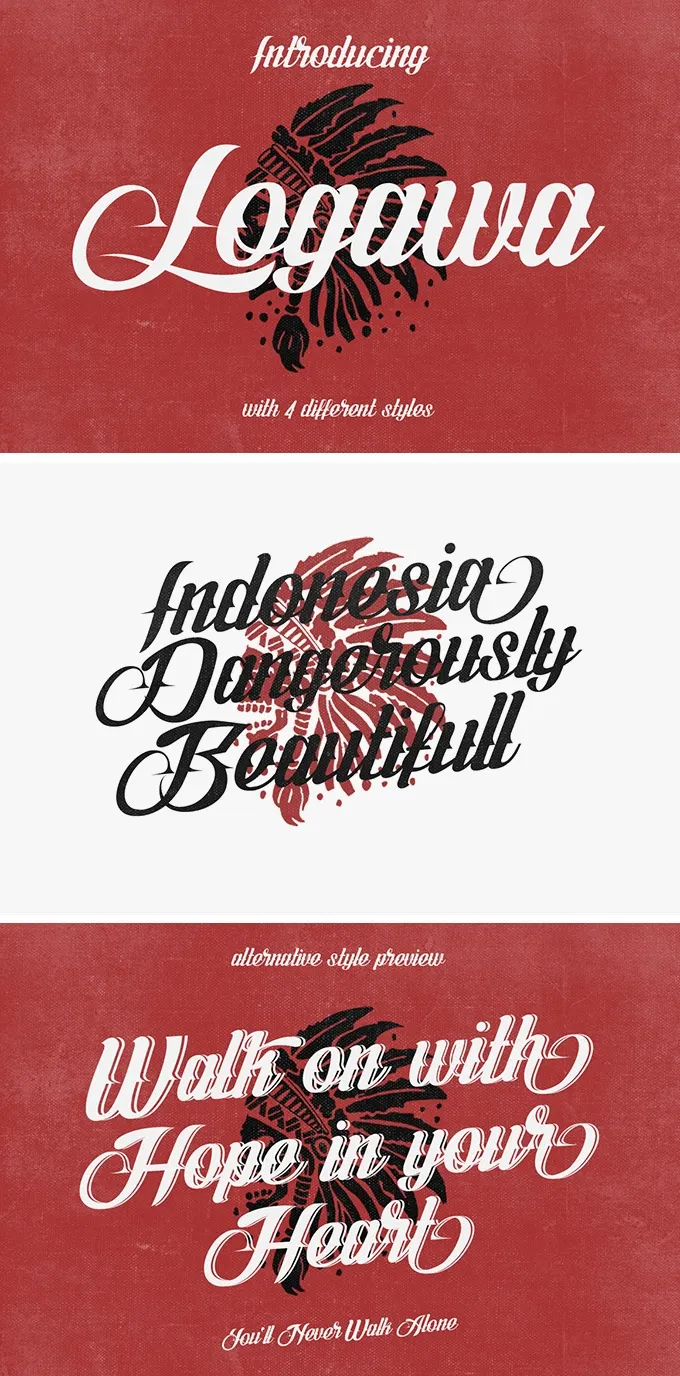
Logawa Script Font
Get yourself a handpainted typeface inspired by the tattoo artist lettering. Some ethnic motives are present as well, thanks to some vintage-looking characters of this adventurous script!
Our today's freebie comes in OTF and TTF formats with 4 different styles for your absolute convenience of self-expression. You have to choose the most suitable one, add some accents and you'll get a perfect visualization for headlines, logotypes, t-shirt, and apparel designs. Let your story be told with a spirit of adventure behind it!